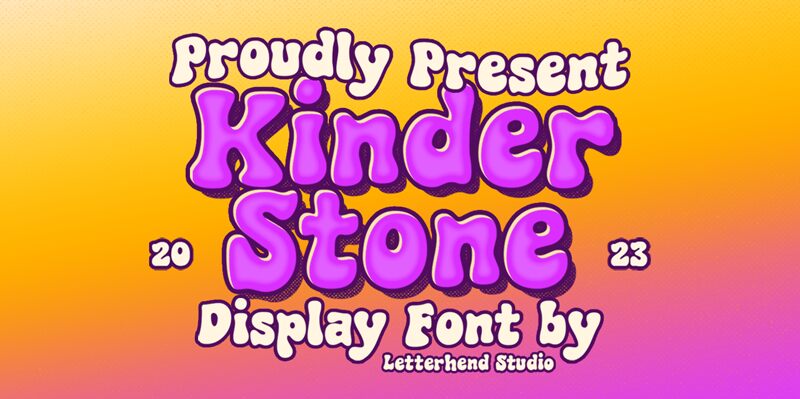
Kinder Stone, crafted by the talented designers at Letterhend Studio, is a captivating display font that exudes a playful and whimsical charm. With its bold, cartoonish strokes and distinct personality, this font immediately captures the attention, evoking a sense of playfulness and lightheartedness. Its unique letterforms seamlessly blend elements of classic typography with a modern, reimagined aesthetic, making it a standout choice for a variety of design applications.
This versatile font shines in projects that seek to convey a sense of adventure, creativity, and a touch of nostalgia. Whether designing vibrant children's book covers, playful product packaging, or eye-catching event branding, Kinder Stone's bold and expressive personality will undoubtedly elevate the visual impact of any project.